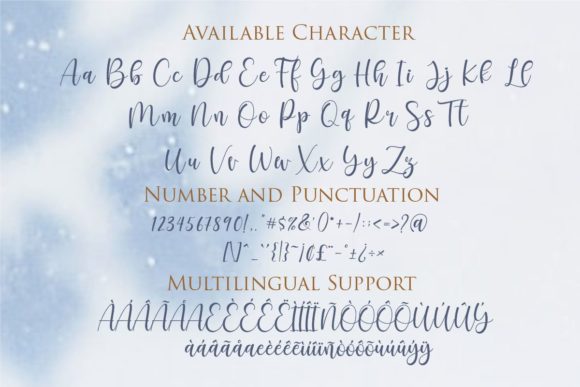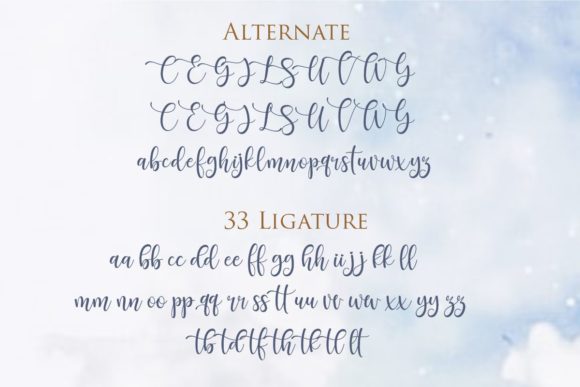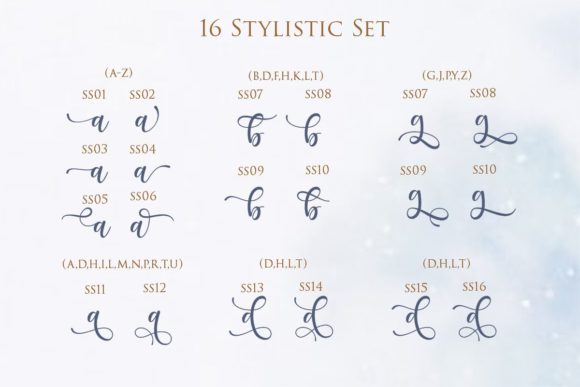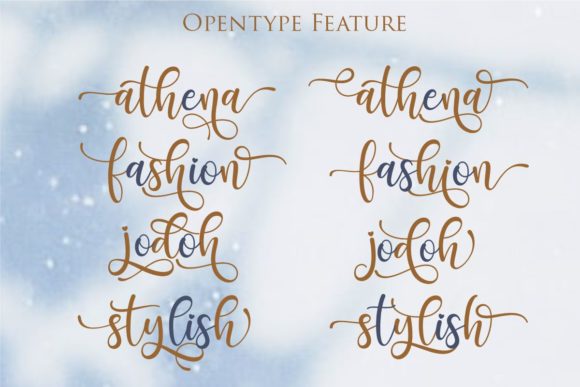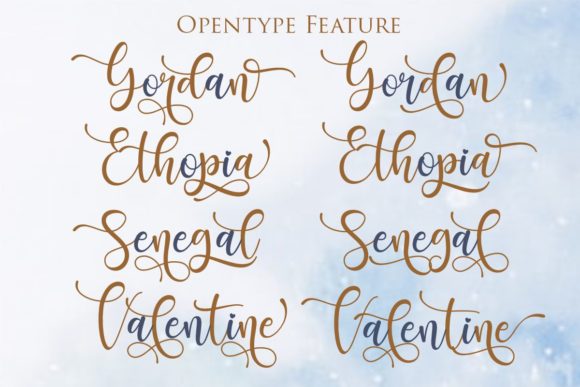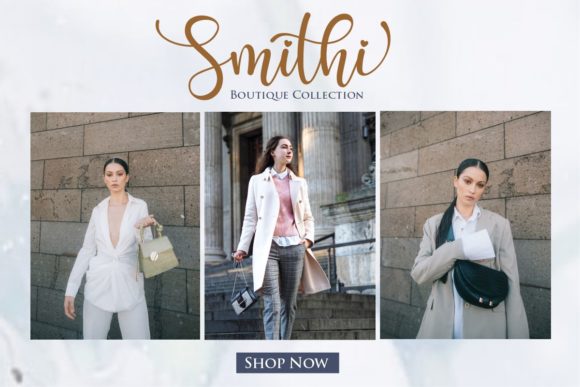
Introduction to Santhin Font
Do you remember that moment when you stumbled upon the perfect font for your creative project? The one that made all the difference and took your design to the next level? For many of us, it’s a moment of pure joy and excitement. Today, I’m thrilled to introduce you to a font that has captured the hearts of designers worldwide: the Santhin Font. This sweet, soft hand-lettered script is a game-changer for any creative project, from stunning crafts to beautiful wedding invitations.
| 👤 Author | Gilar Studio |
The Santhin Font comes packed with gorgeous swashes, allowing you to add a decorative touch with just a few clicks. Its authentic feel makes it a valuable resource for designers looking to create high-quality, unique designs. Whether you’re working on a free download or a paid project, the Santhin Font is sure to impress. With its transparent background and high-quality design, it’s the perfect addition to any design resource.
Key Features of Santhin Font
- High-quality, unique font design perfect for creative projects
- Includes a transparent background, ideal for use on images with varying backgrounds
- Designed with a clean and modern aesthetic, suitable for a wide range of design applications
- Can be used as a design resource for various creative projects, including logos, graphics, and more
Honest Review: Santhin Font
As a designer, I’ve had the pleasure of experimenting with various fonts, and I must say that the Santhin Font is a great addition to my design resource collection. One of the standout features of this font is its high quality, making it perfect for creative projects that require attention to detail. ✨
One of the things I appreciate about the Santhin Font is its versatility. It’s available for free download, which is a huge plus for designers working on tight budgets. Additionally, it comes with a transparent background, making it easy to incorporate into various design elements. ✨
- Works well in creative projects that require elegant and refined typography
- High-quality font that’s perfect for designers looking for a professional touch
- Transparent background makes it easy to incorporate into various design elements
While the Santhin Font is an excellent addition to any designer’s toolkit, there are a few limitations to consider. The font may not be as customizable as some other options, and it may not be suitable for projects that require a bold or playful tone. ⚠️
Overall, I’m impressed with the Santhin Font and would highly recommend it to designers looking for a high-quality, elegant font for their creative projects.
Common Use Cases for Santhin Font
The Santhin Font is ideal for a variety of creative projects, including logos, business cards, and marketing materials. Its unique design and transparent background make it a great choice for designers and non-designers alike.